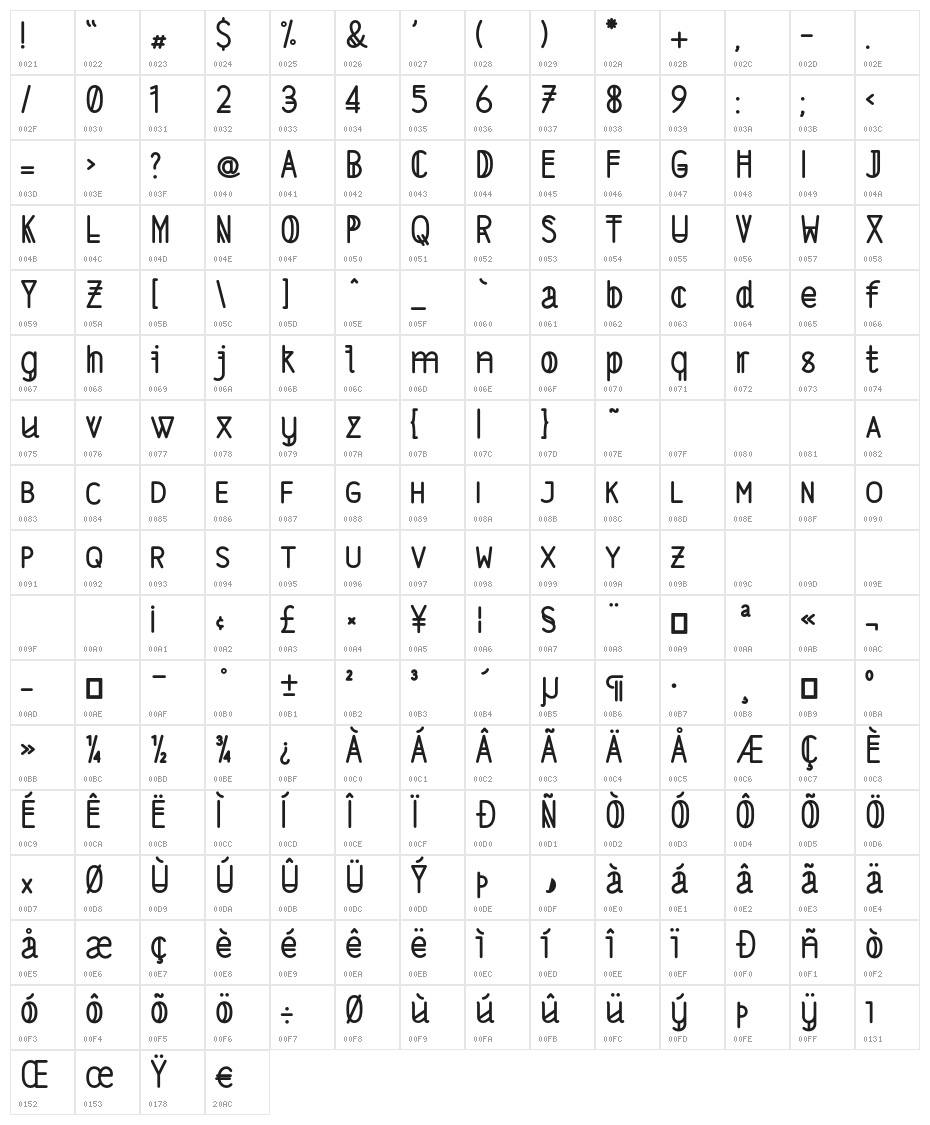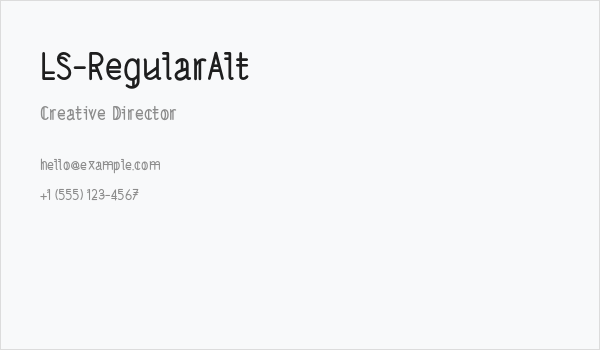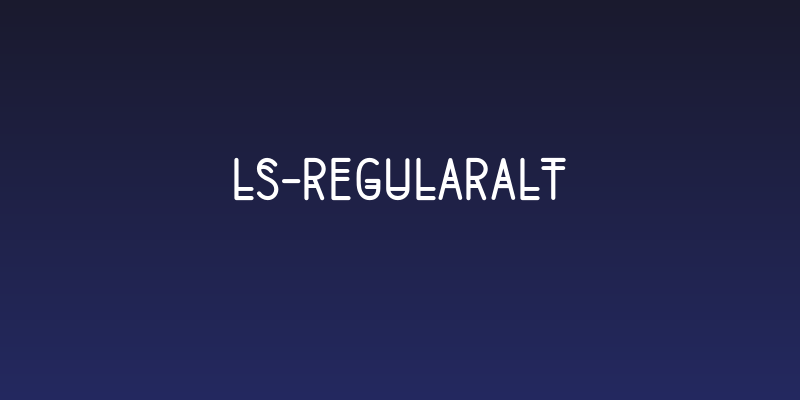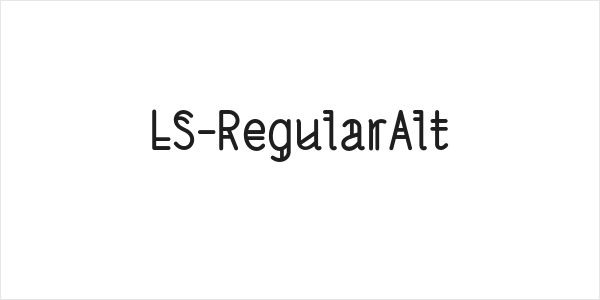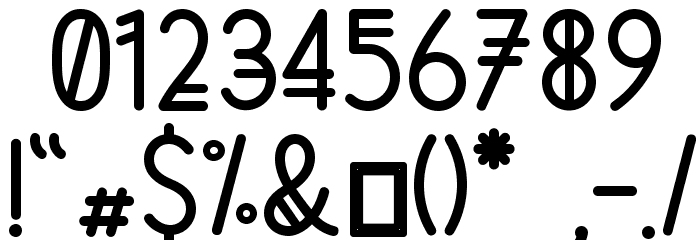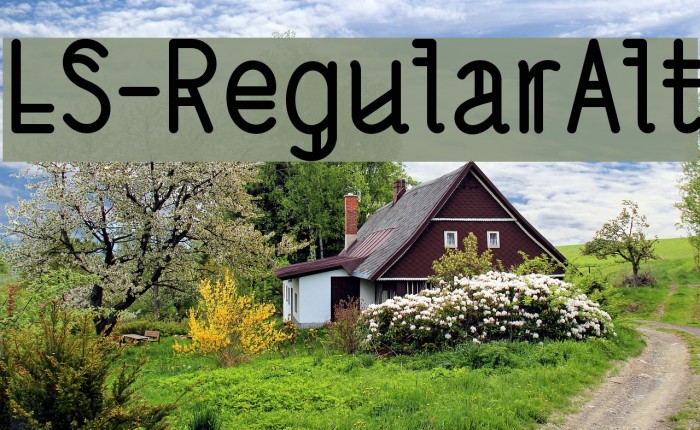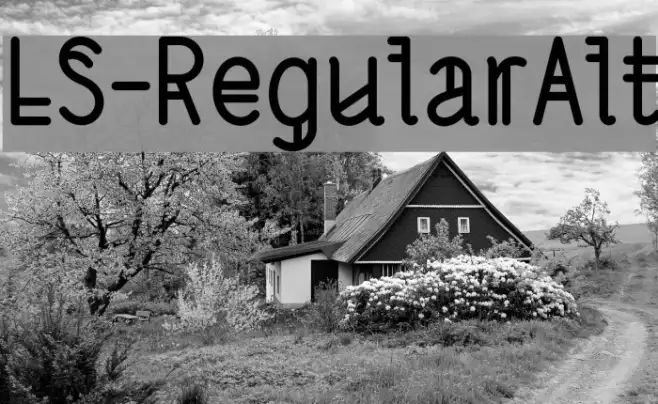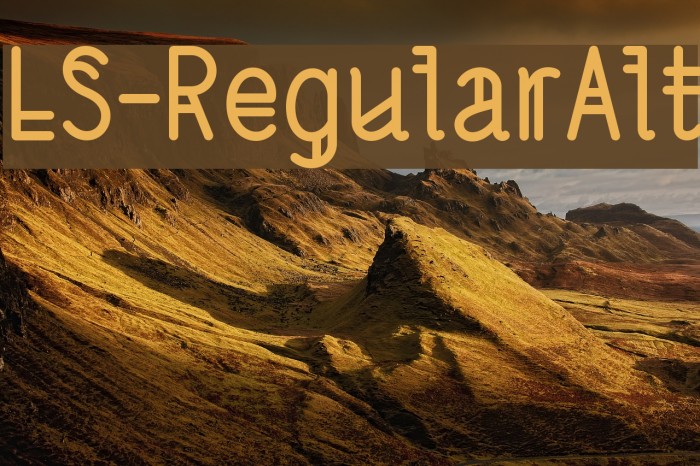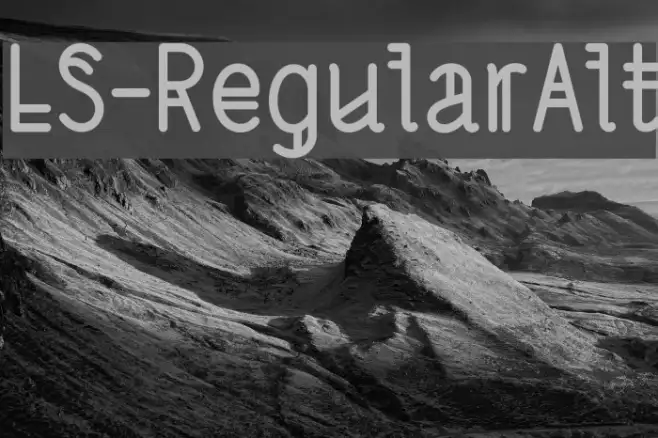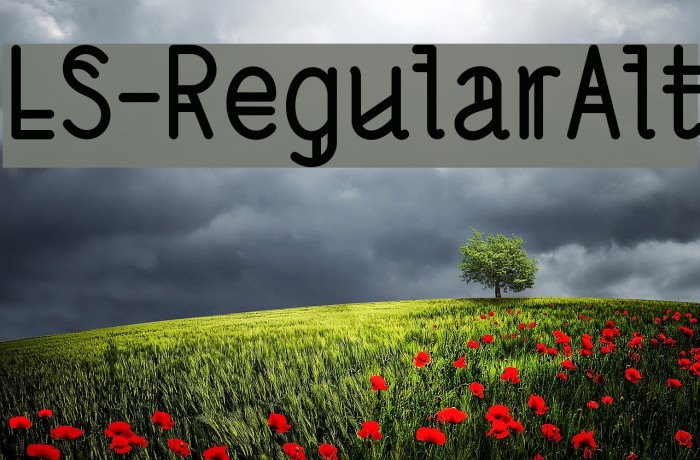
LS-RegularAlt Font
LS-RegularAlt Description
This font features a unique and playful design with a modern twist. The characters are rounded and have a consistent stroke width, giving it a clean and approachable appearance. The uppercase letters have a distinct geometric style, with some characters incorporating unexpected angles and lines that add a quirky charm. The lowercase letters maintain the same playful aesthetic, with rounded edges and a slightly condensed form. The numerals are bold and clear, ensuring readability. Special characters are designed with the same attention to detail, making them stand out while remaining cohesive with the overall style.
| Proposed Projects | Ideal for children's books, playful branding, creative posters, and modern web design. |